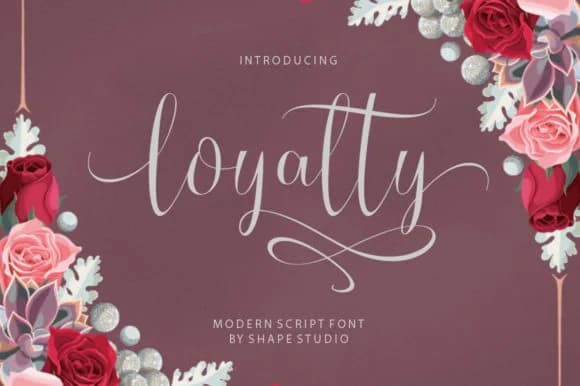
1 / 7About Loyalty Font
This script has a loose, confident energy that feels genuinely handwritten yet remains polished enough for serious professional work. Loyalty, designed by Letterware, is a modern script font built on an intentionally irregular baseline, which gives each letter natural movement and rhythm that a perfectly uniform typeface simply can't match.
The font truly shines in upscale applications where personality and hand-crafted quality matter as much as legibility: luxury jewelry branding and lookbooks, high-end wedding invitation suites, artisan product labeling for small-batch skincare and apothecary lines, and custom stationery sets for boutique service brands. That irregular baseline isn't a flaw, it's a deliberate feature that keeps text from feeling stiff or overly formal. It clearly signals handcrafted quality instead of mass production. The slight variation makes Loyalty feel like someone actually sat down and wrote it by hand, which builds real trust with audiences who have grown weary of anonymous, computer-perfect typefaces. There's genuine authenticity in the imperfection, which is exactly what premium brands want to communicate.
For your layouts, pair Loyalty with a clean, minimalist sans-serif (something with geometric or modern bones works best) to give the script plenty of room to breathe and draw attention exactly where it matters most. You can grab Loyalty on Creative Fabrica and put it to work on your next project.
Loyalty Font is a script font that shines as a display or heading face. Pair it with a clean sans-serif or serif font for body text β the contrast creates a clear hierarchy while the two styles stay balanced and easy to read.
Loyalty Font
by Letterware